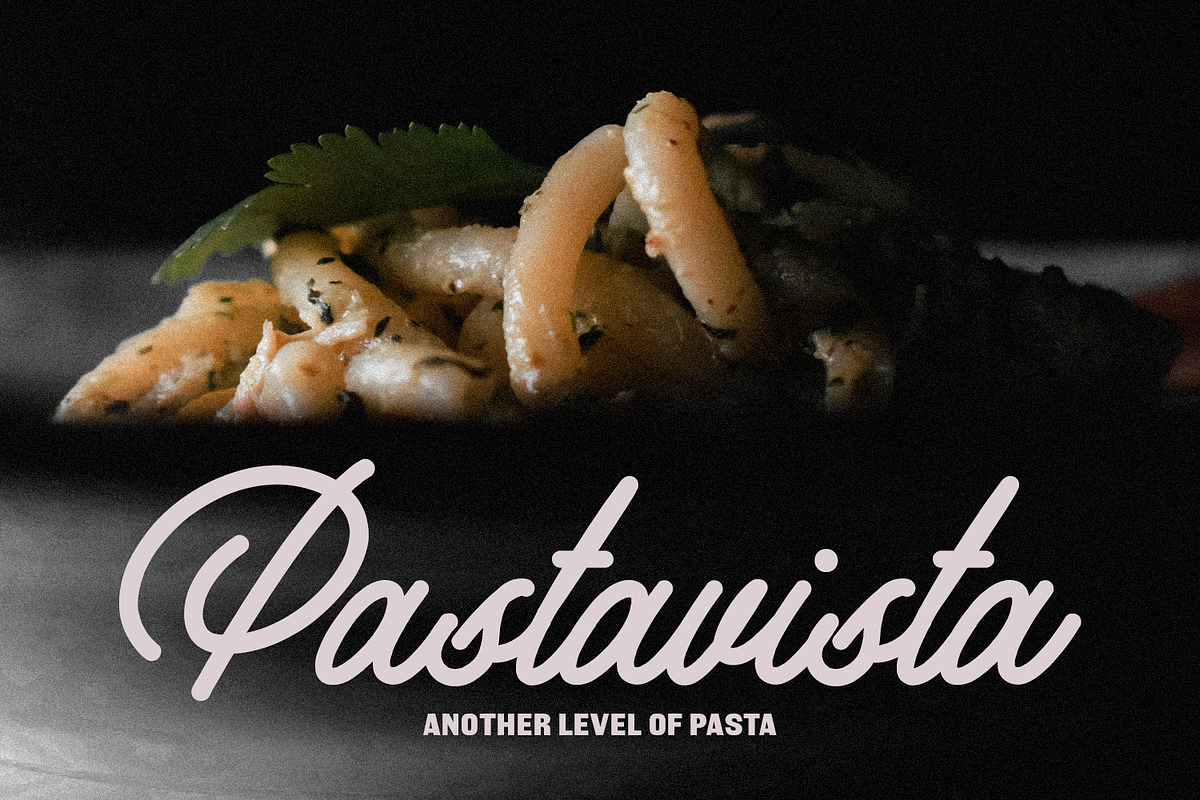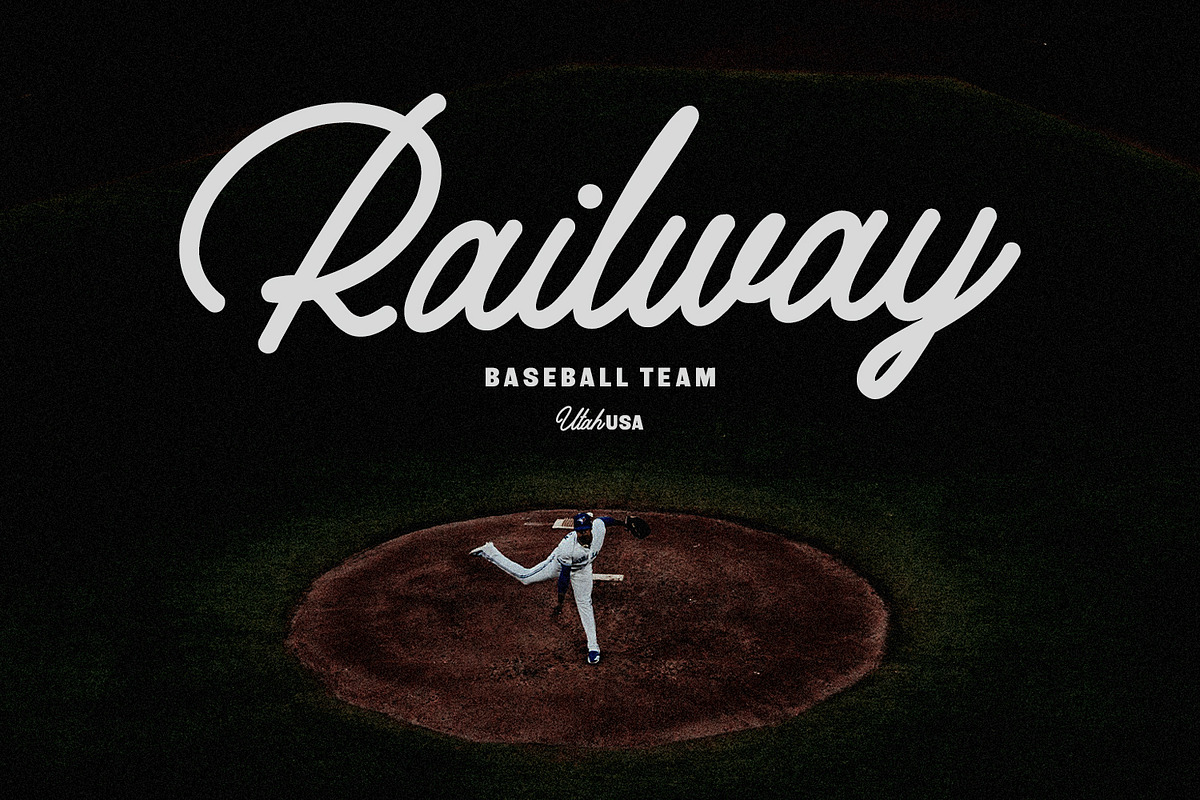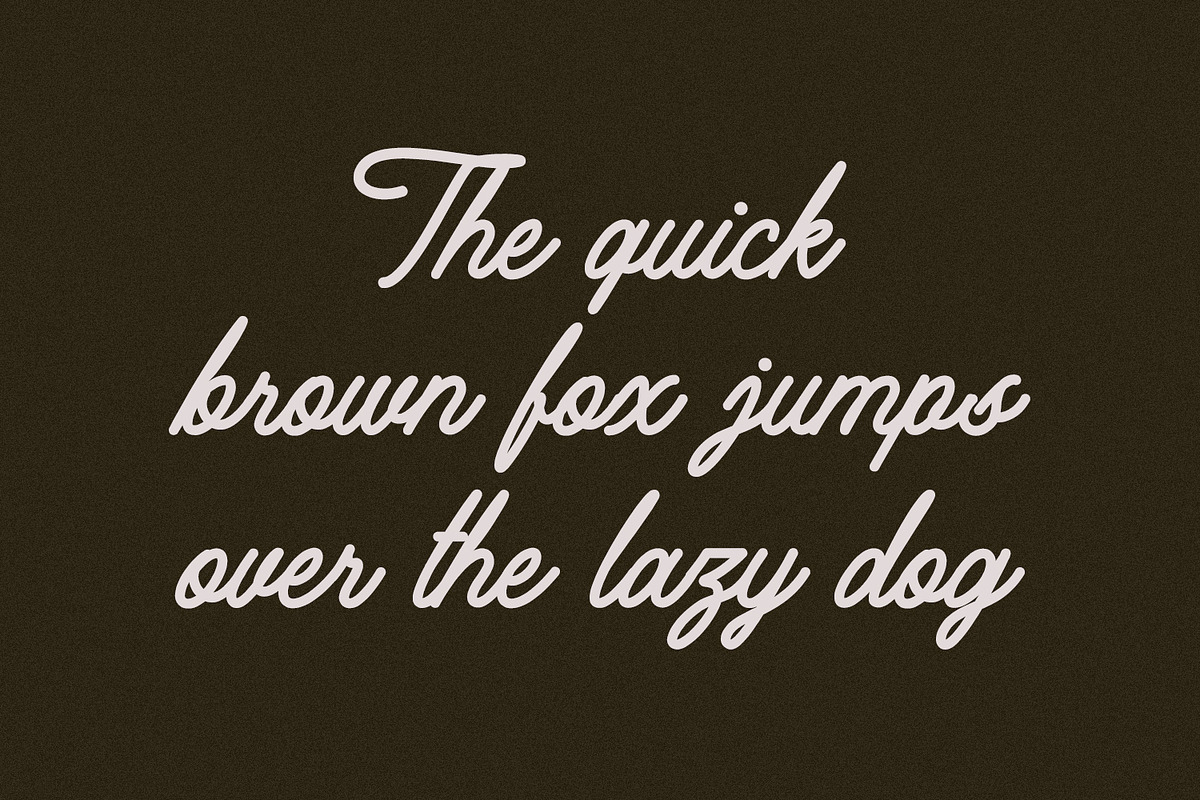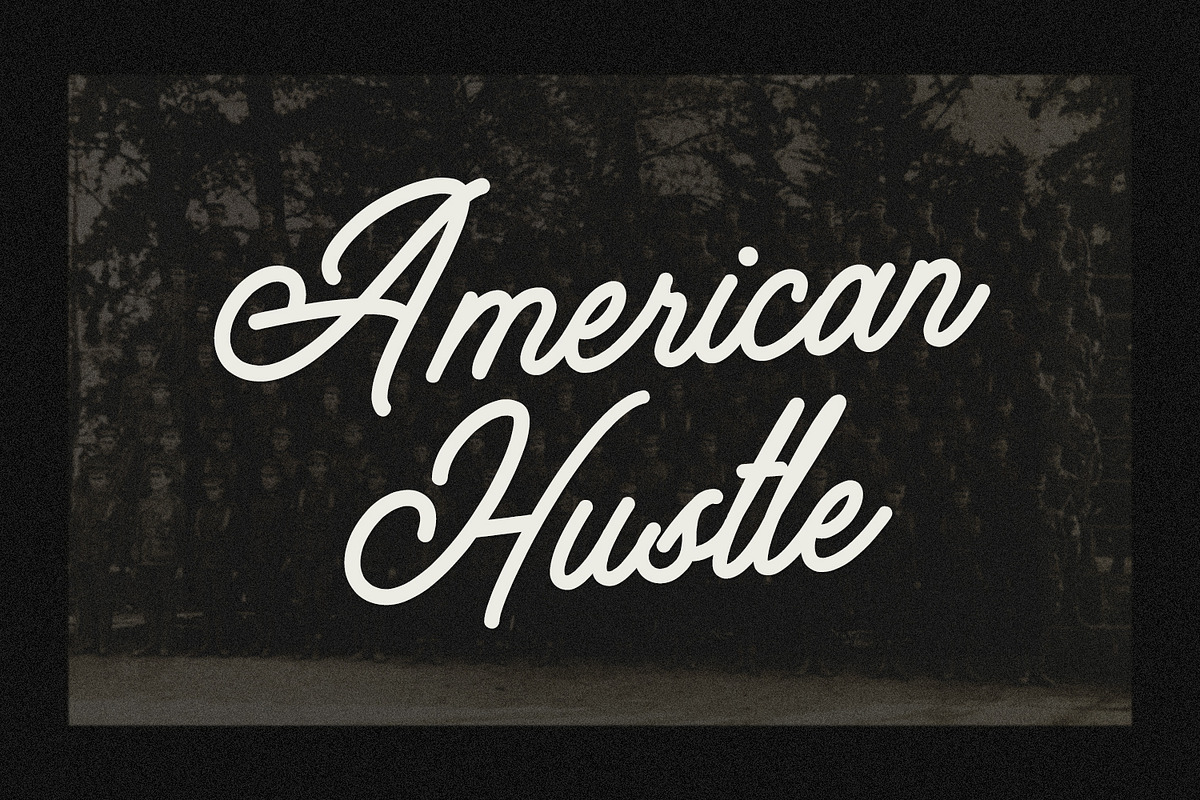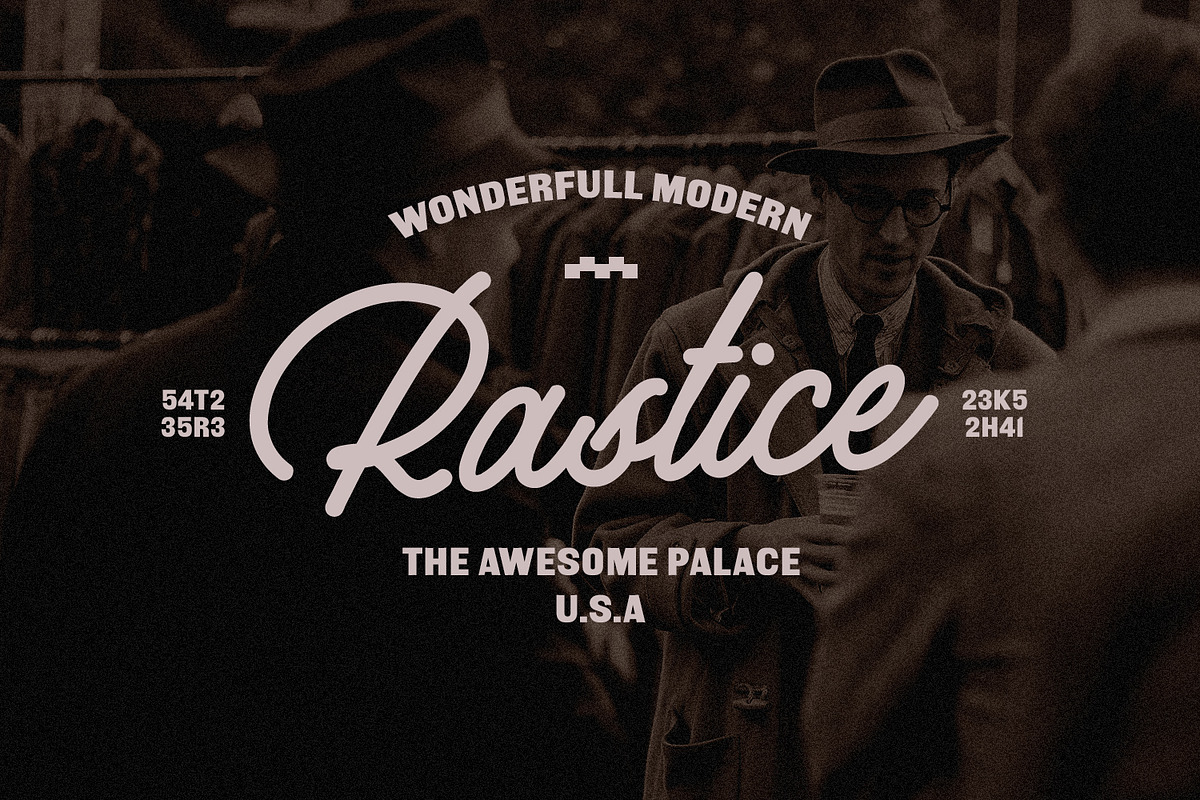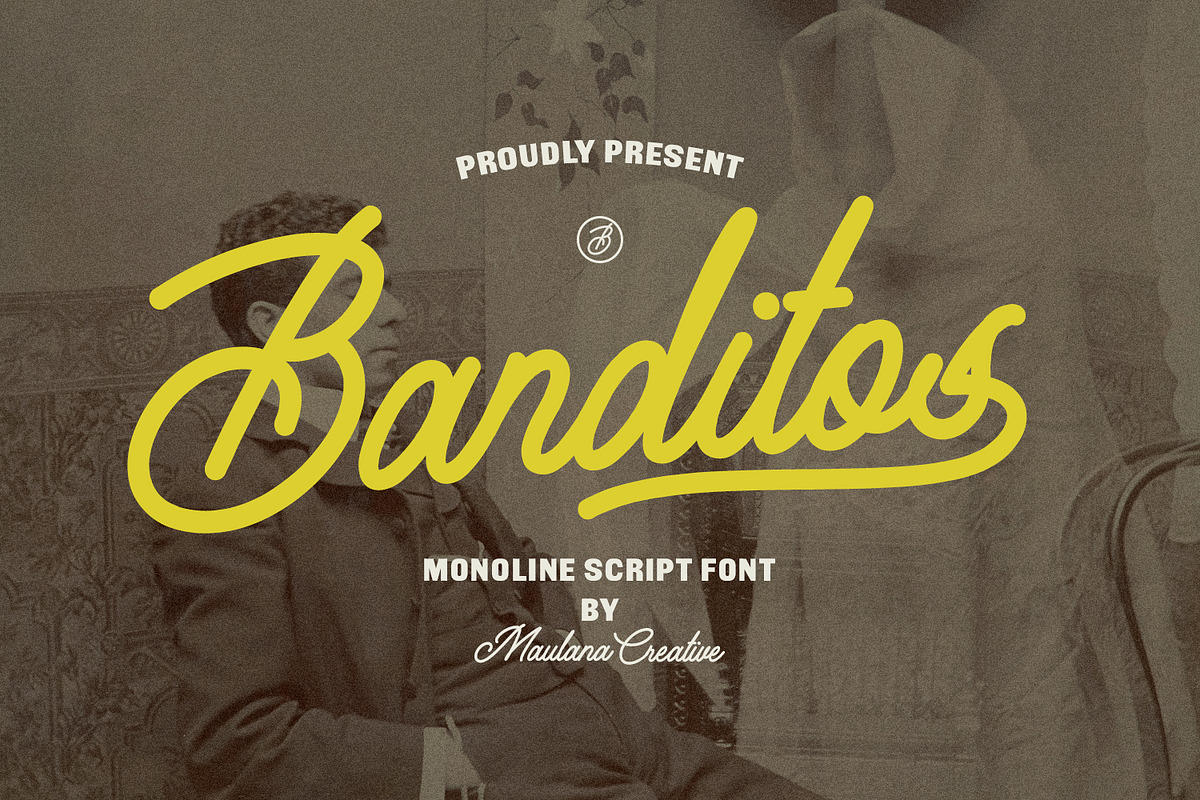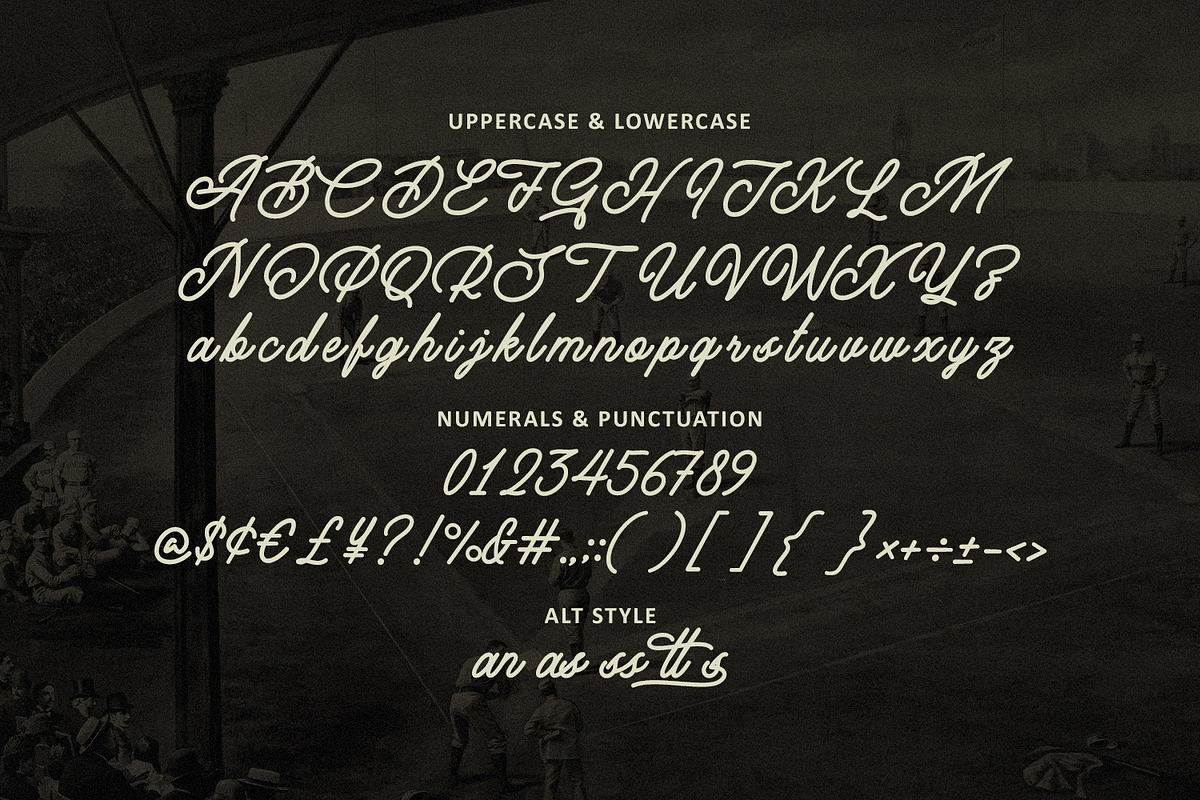
Banditos Casual Monoline Script Hand
Banditos casual monoline script handmade vintage font. Fun character with a bit of ligature and alternate. To give you an extra creative work. Banditos font is good for logo design, Social media, Movie Titles, Books Titles, a short text even a long text letter and good for your secondary text font with script or serif. Make a stunning work with Banditos font.